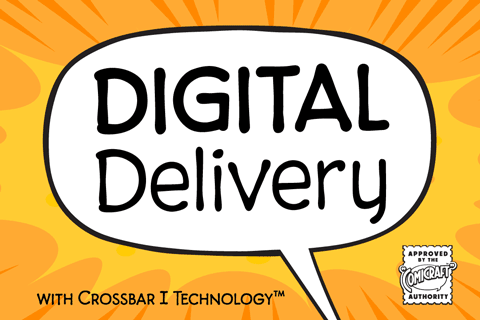
Improved linespacing, spacing & kerning; added Bold weight, automatic alternates, Crossbar I Technology™ and Central European language support.
- Five weights with upper & lowercase
Launch your narrative directly into the next century using Digital Delivery Font from Comic Book Fonts! Clean precision defines this John Roshell creation, guaranteeing your dialogue leaps off high-res tablets, mobile screens, and printed pages alike.
High-tech cyber-city banter, secret text chains, and epic sci-fi narration require maximum visual clarity. Serving as an exceptional comic word balloon font, this crisp set brings razor-sharp legibility to every speech bubble and caption box in your layout.
Four versatile weights—regular, italic, bold, and bold-italic—featuring smart crossbar-I tech make this collection an unbeatable pick among the best comic book fonts available. Injecting slick, professional style into futuristic graphic novels, digital manga, or online superhero sagas happens in an instant when you drop these sleek letterforms onto your canvas!